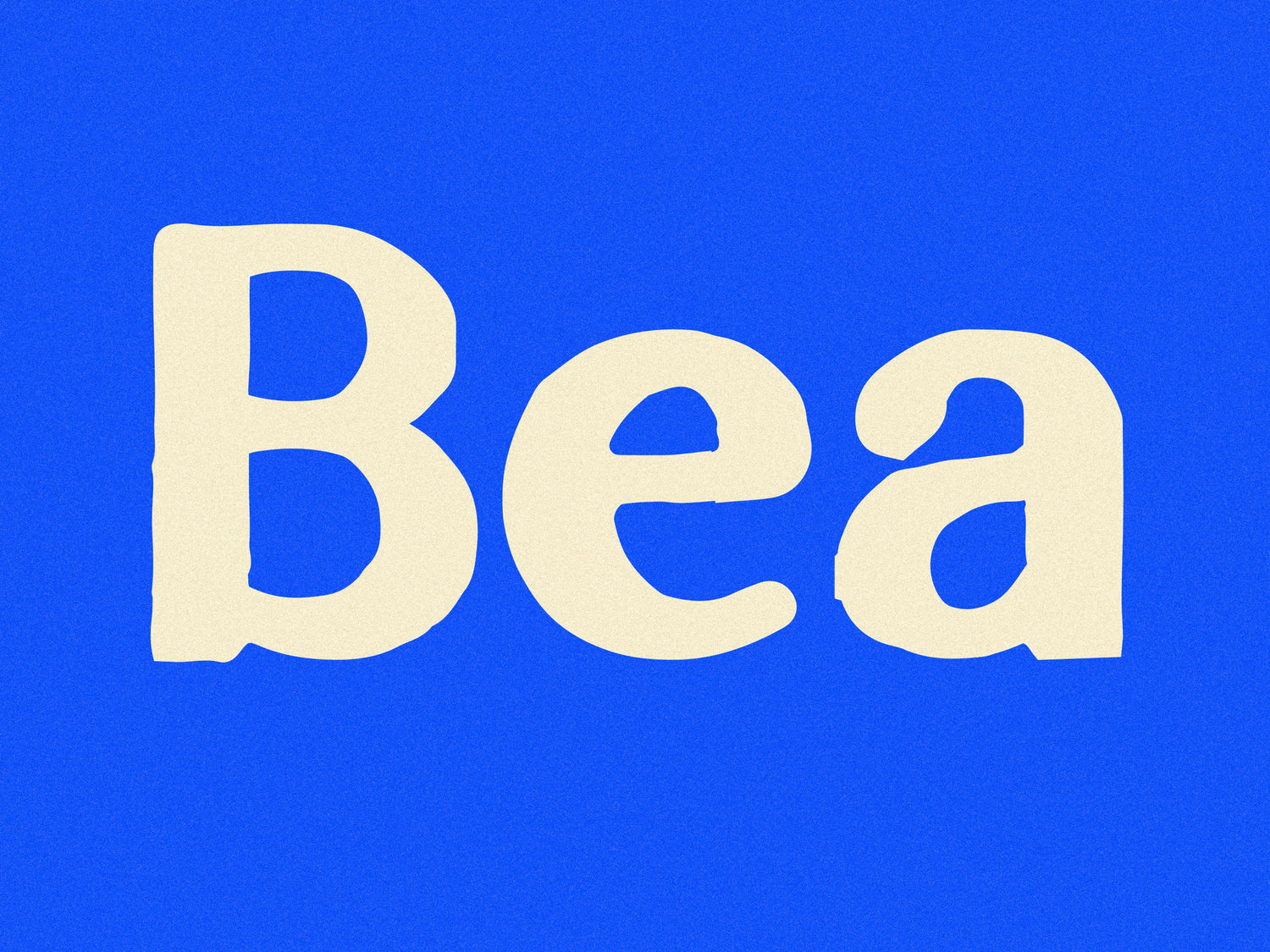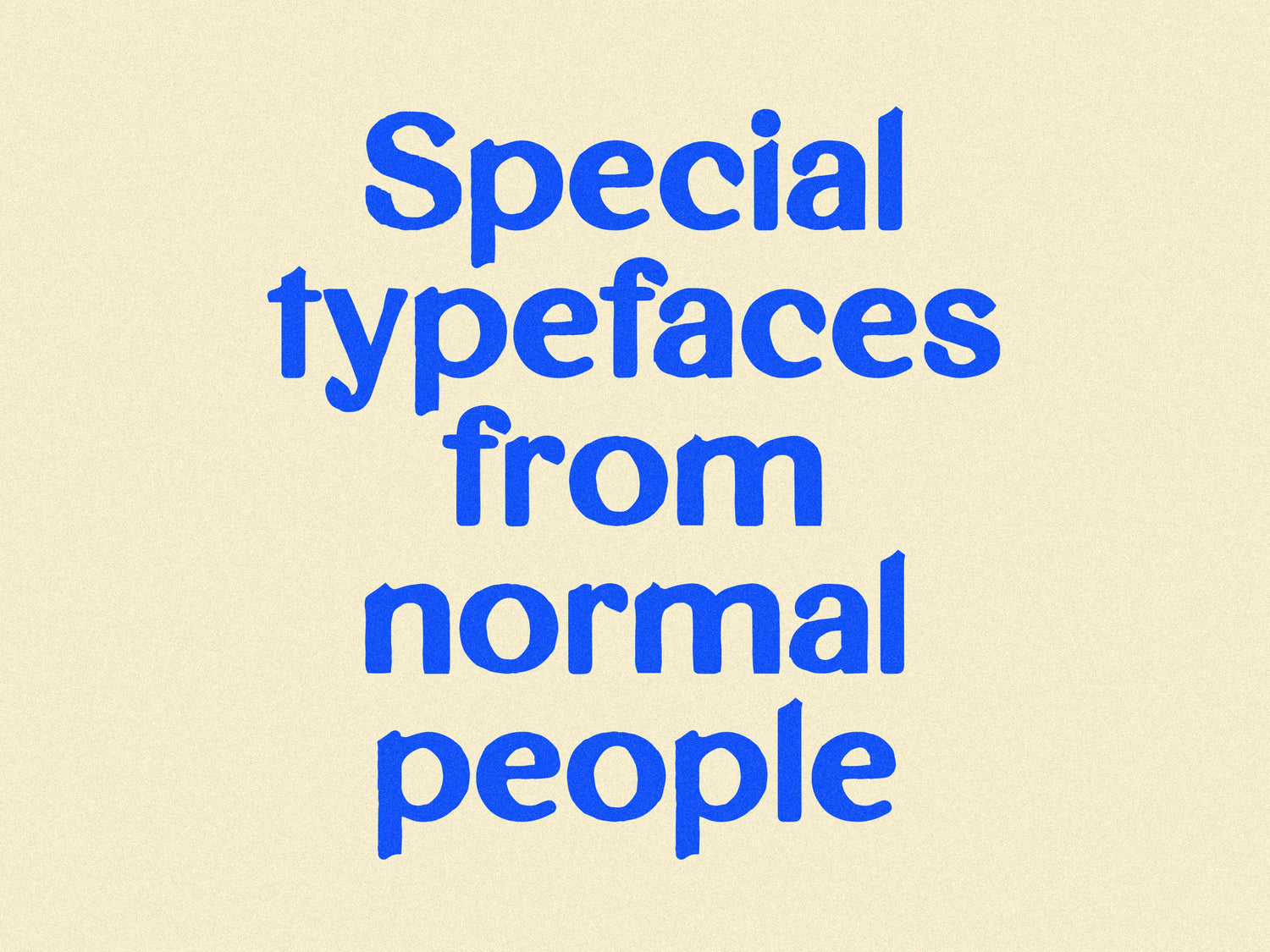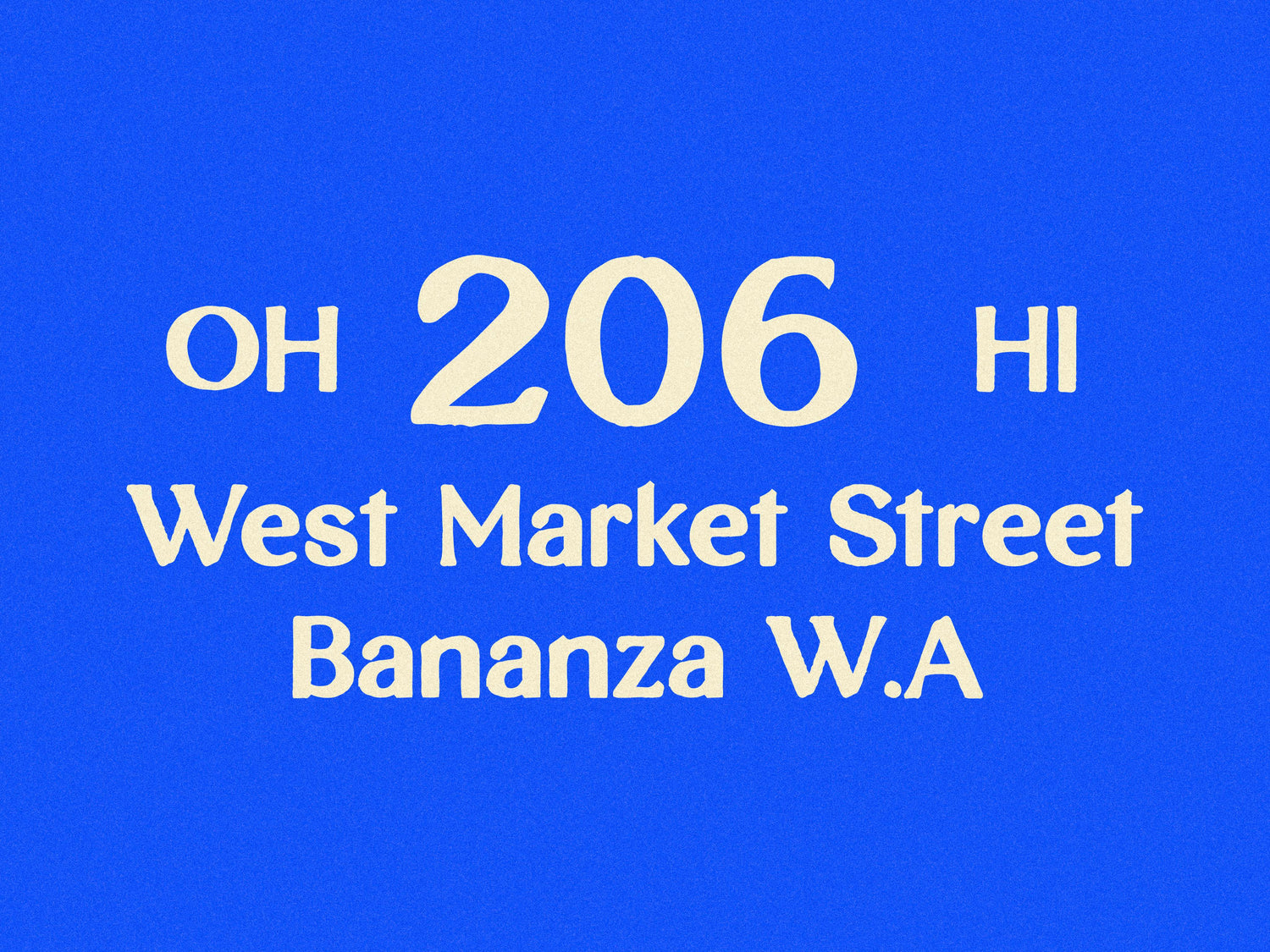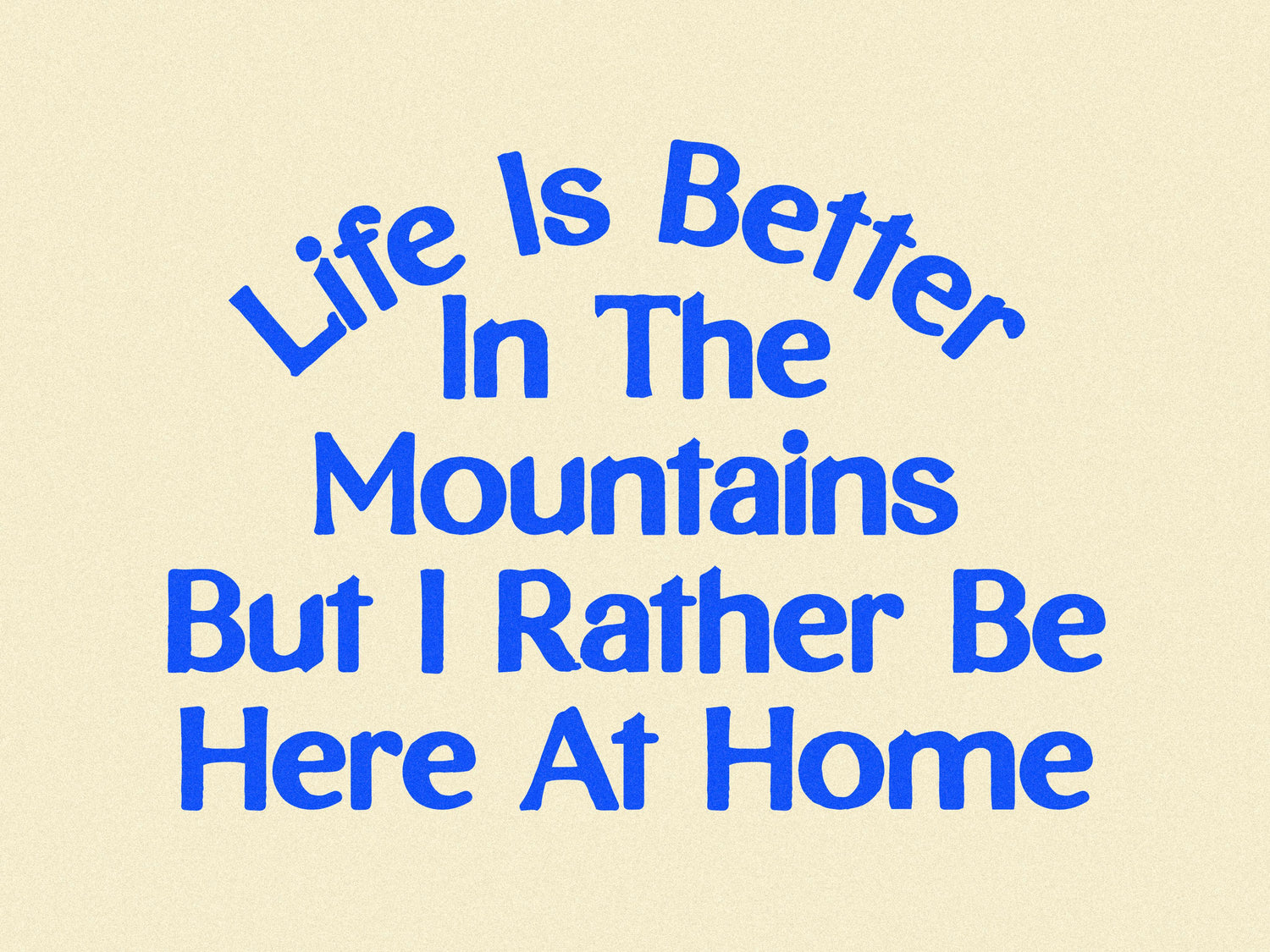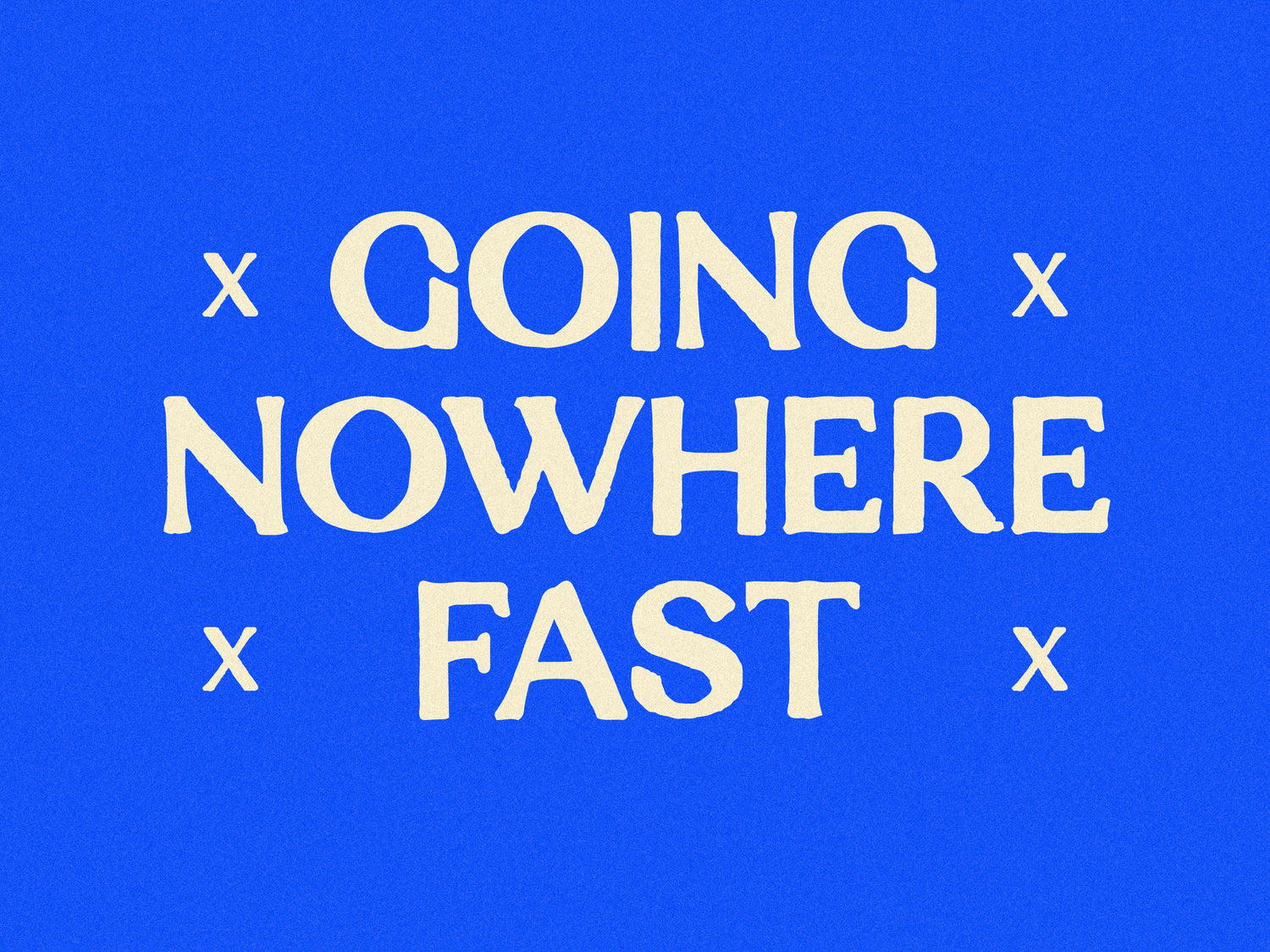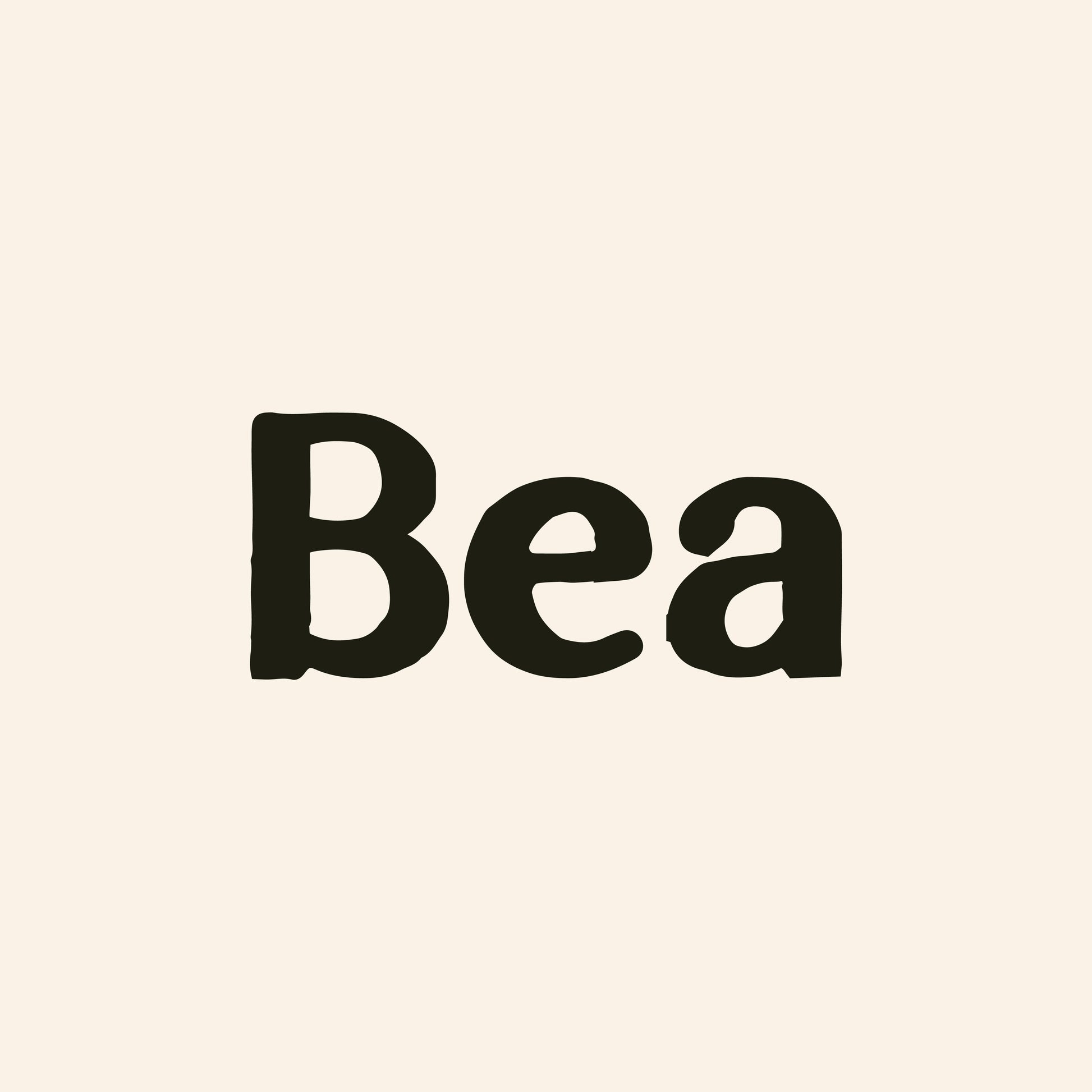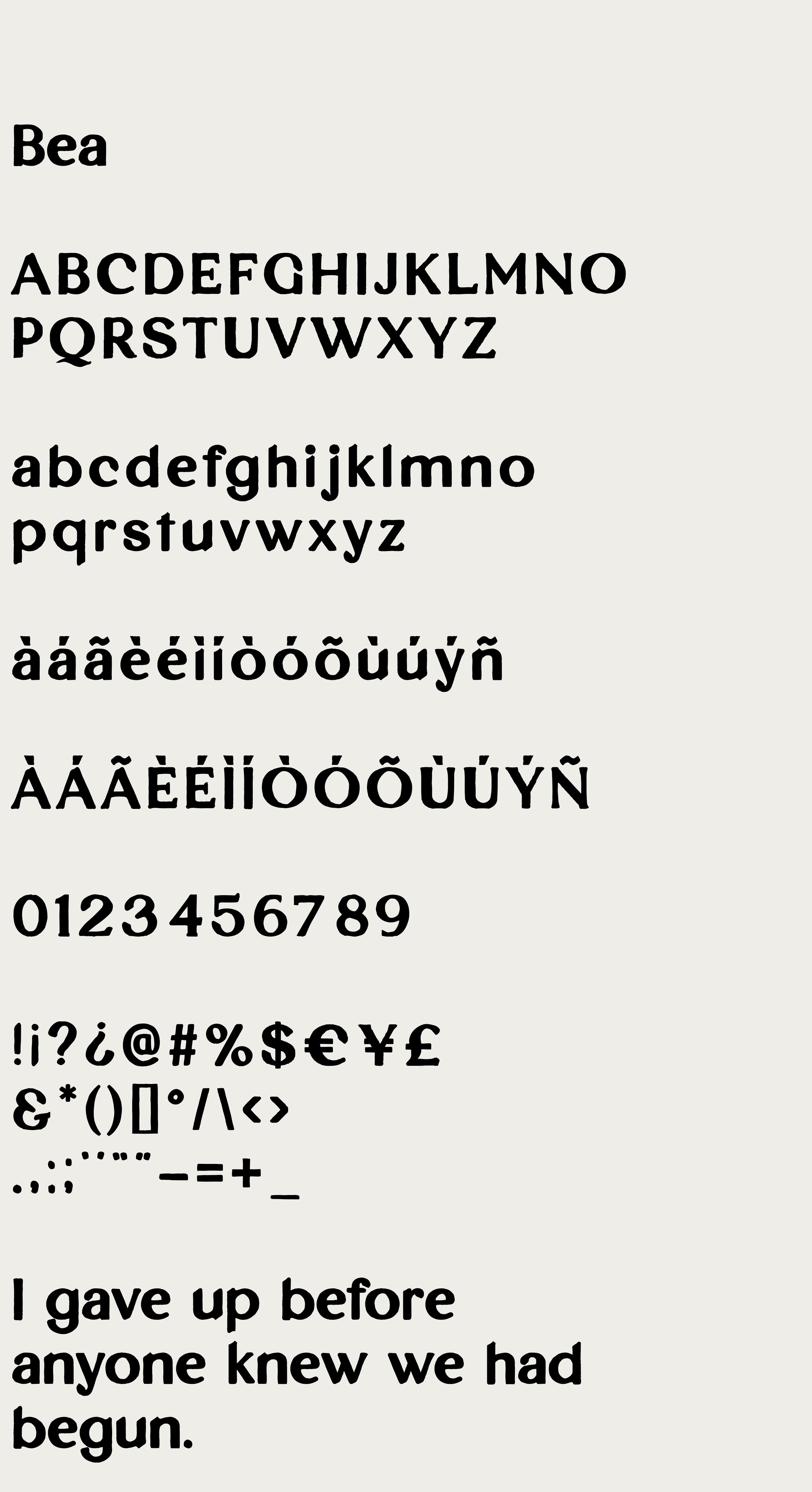
Bea
This is Bea.
Inspired by my wife — bold, beautiful, and capable of brightening up just about anything. The typeface leans the same way: strong personality, soft edges, and full of character. Use it when you want something that actually feels like it came from somewhere personal.
Supported Languages
Basic Latin support with a limited set of accented characters. Please see the character sheet below for the full glyph list.